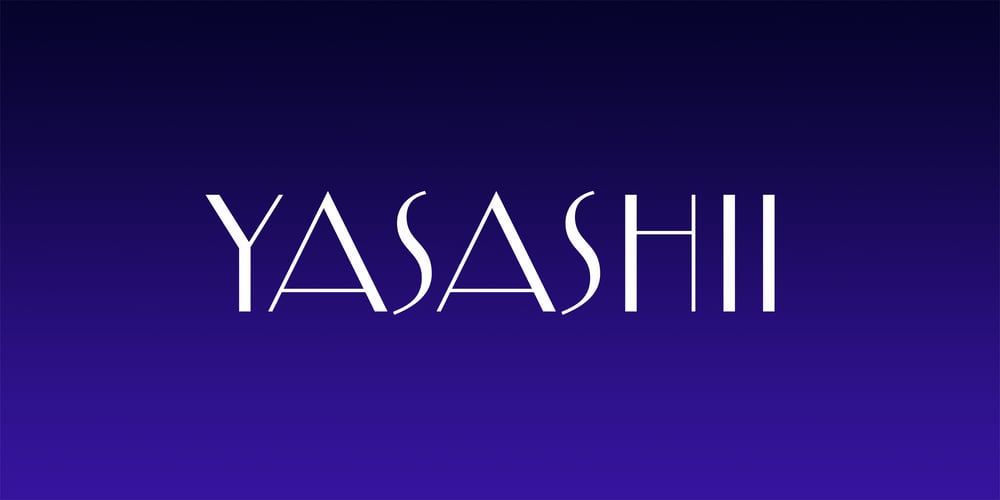
Yasashii Font Family was designed by Ryoichi Tsunekawa and published by Dharma Type. Yasashii contains 4 styles and family package options. Yasashii is an art deco font based on Japanese designs for cosmetic packaging and posters used from the end of the 19th century to the early 20th. When you prefer more geometric letter form, please try our Diamond Ring.